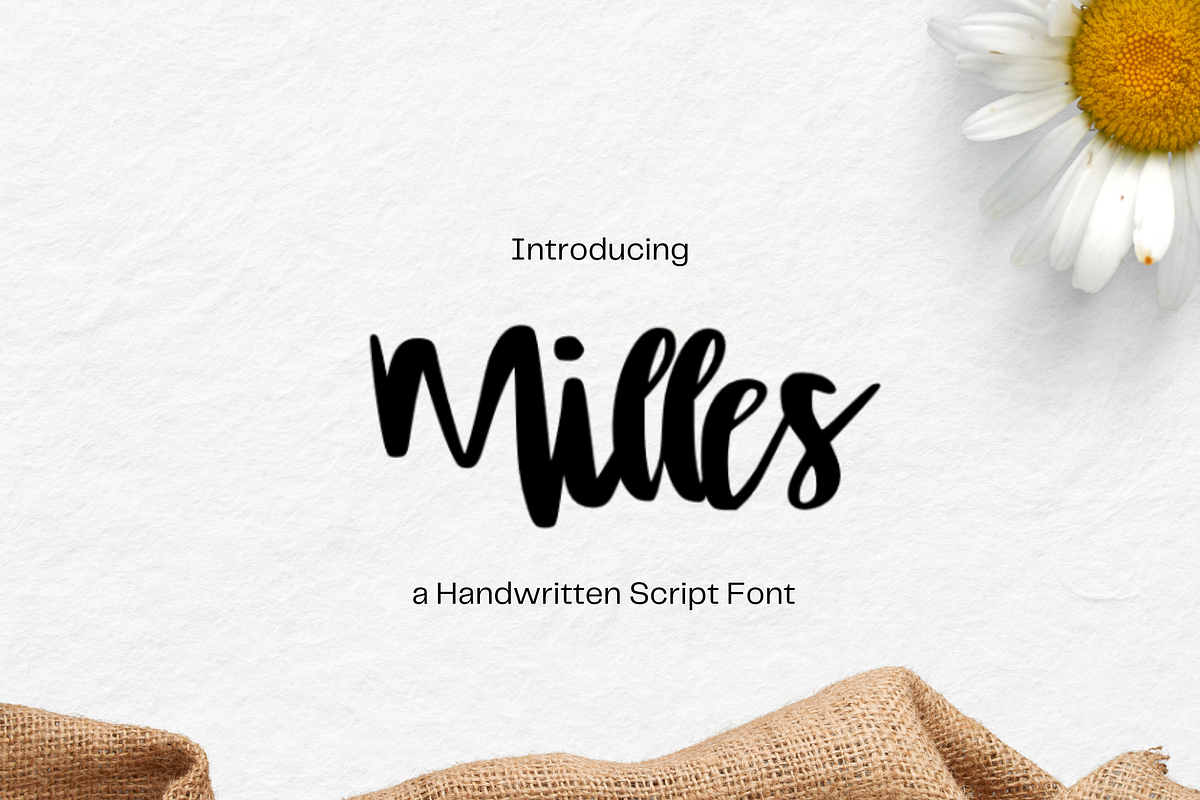
Milles - a Handwritten Script Font Free Download
The Milles - a Handwritten Script Font Free Download is an elegant, flowing script typeface that adds a personal and artistic touch to any design. Perfect for wedding invitations, logos, or any project that needs a handwritten style, this font will elevate your creative work. Please note, for commercial use, a license must be purchased. You can download it for free for testing purposes.
With its natural, flowing strokes, the Milles - a Handwritten Script Font Free Download captures the essence of genuine handwriting, making it ideal for projects that require a personal and sophisticated flair. Whether you're working on branding, packaging, or digital designs, this font adds a unique and graceful touch.